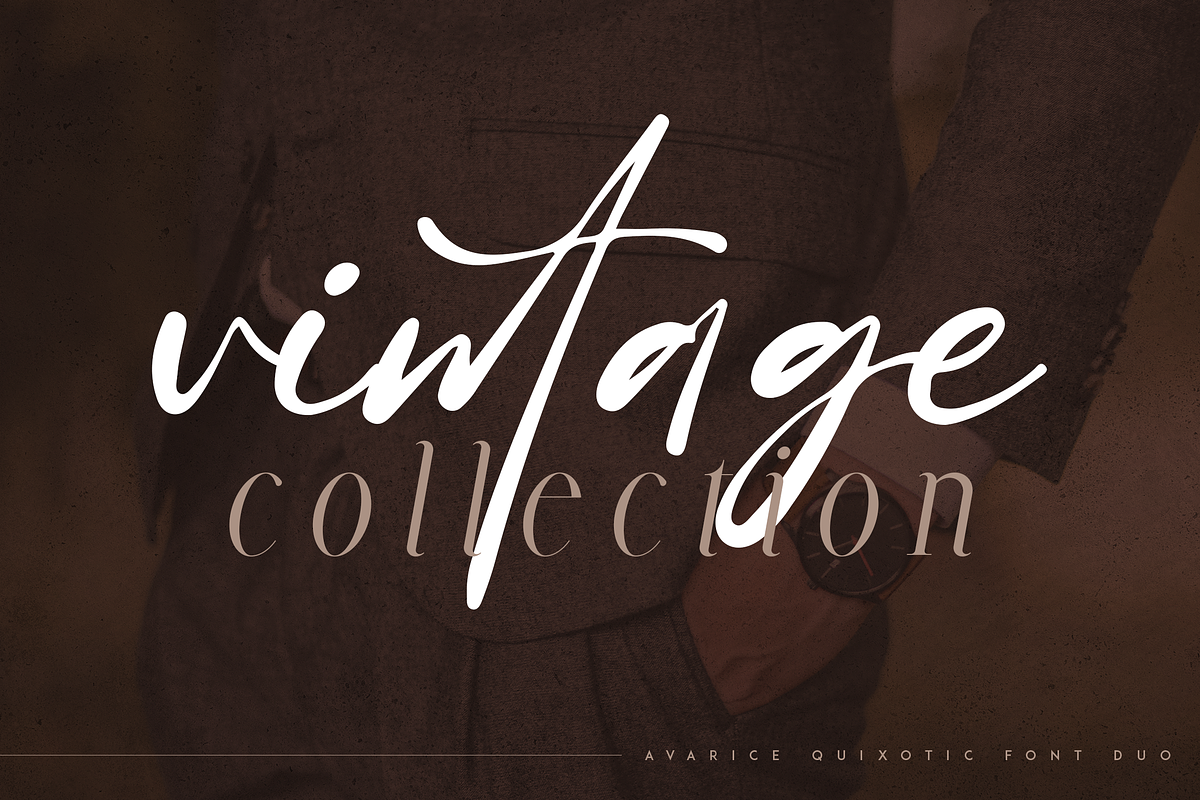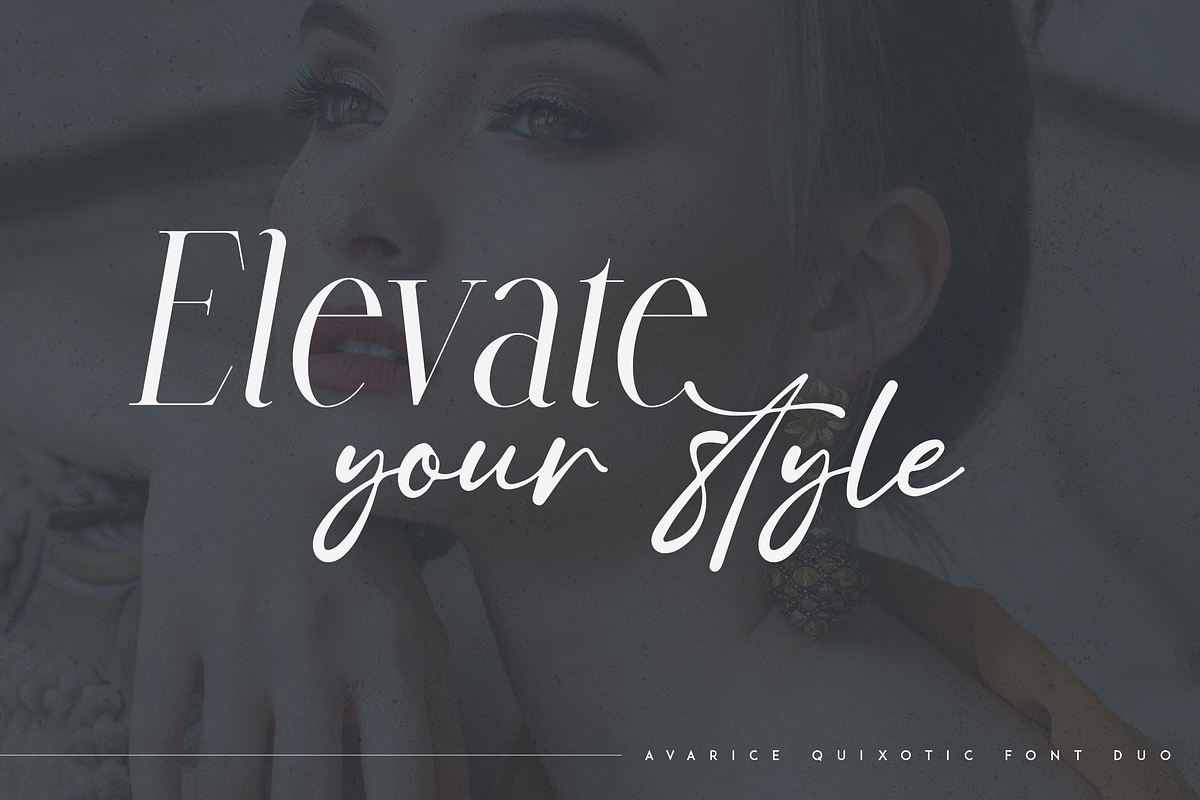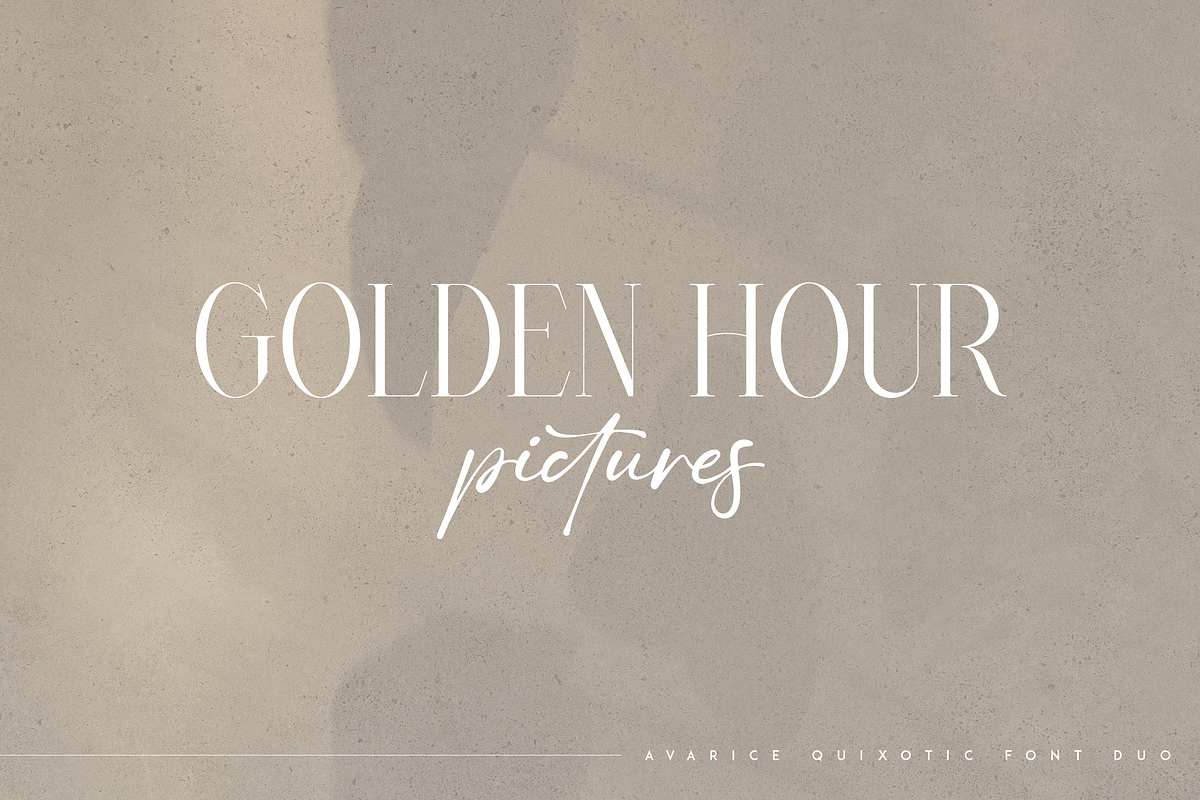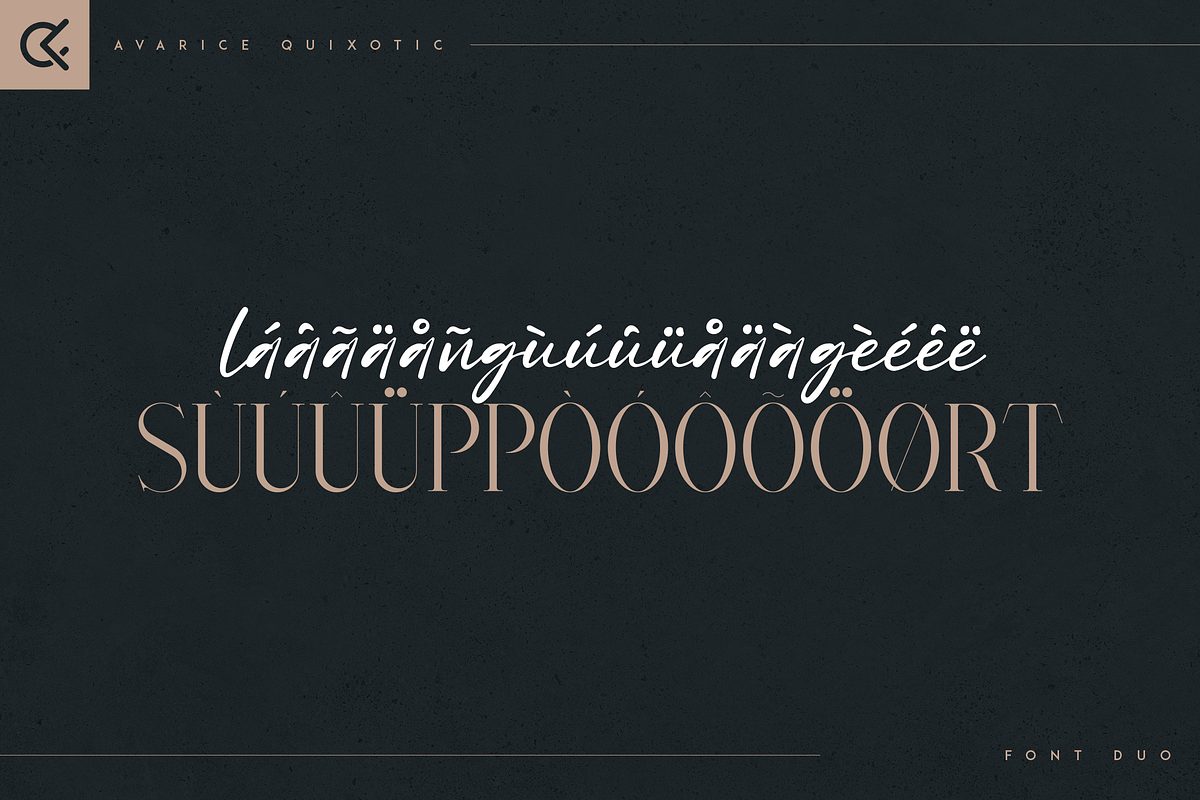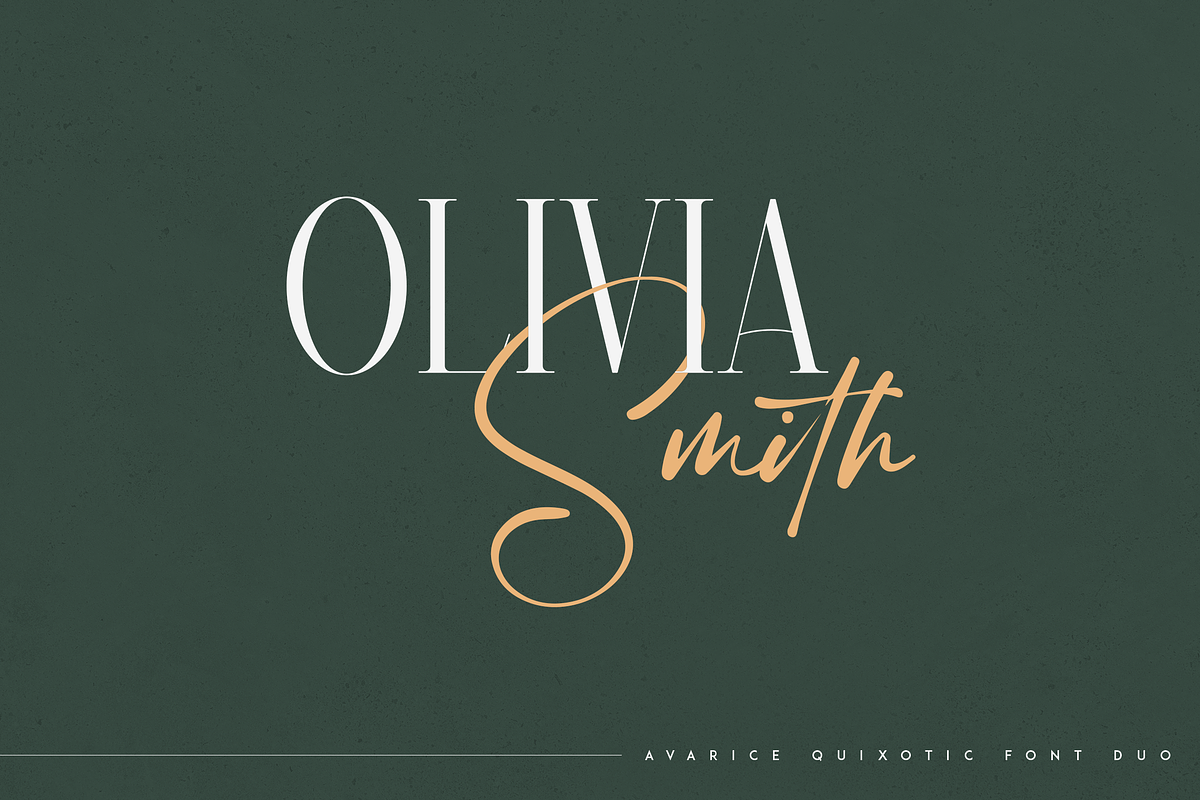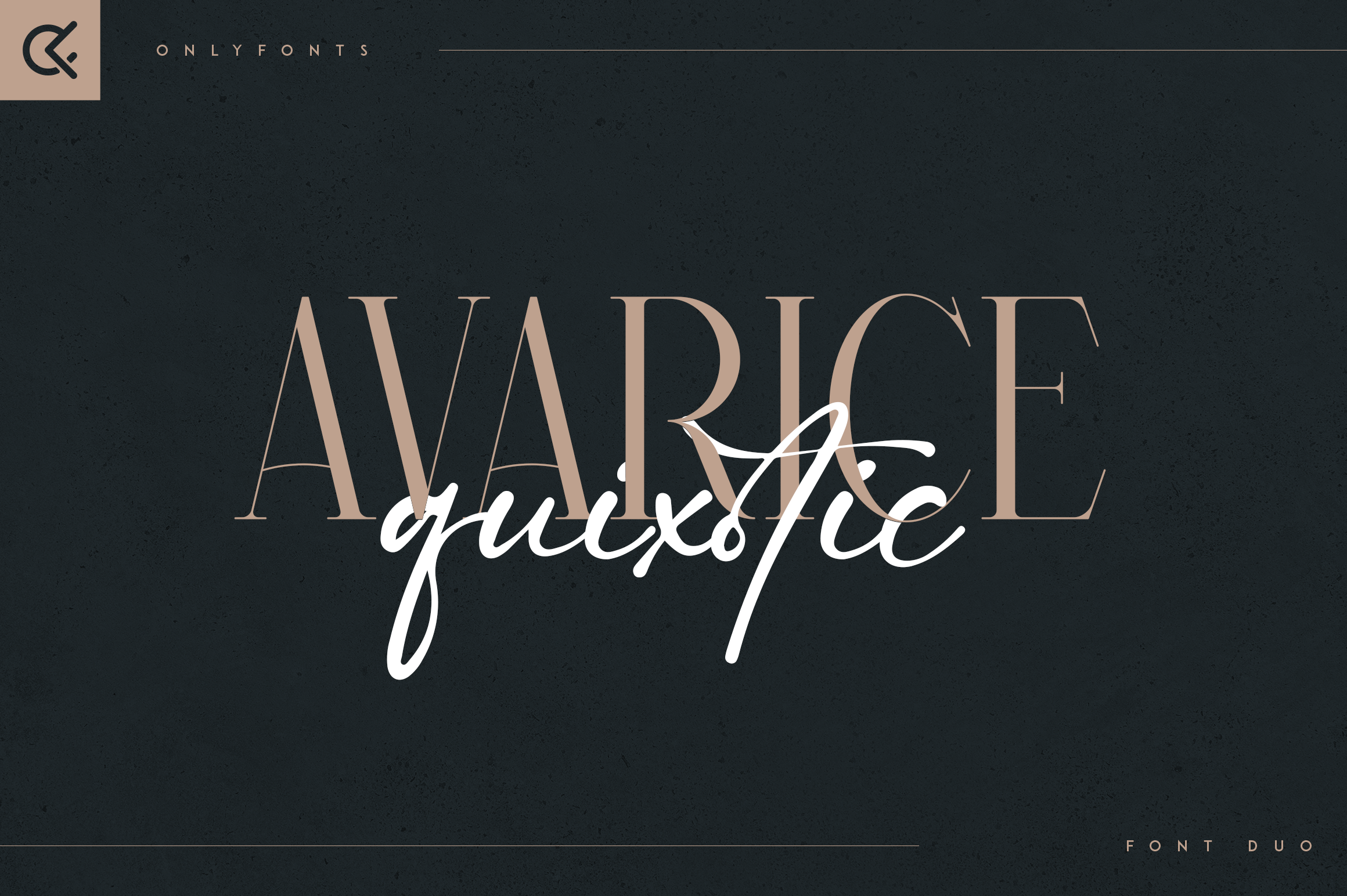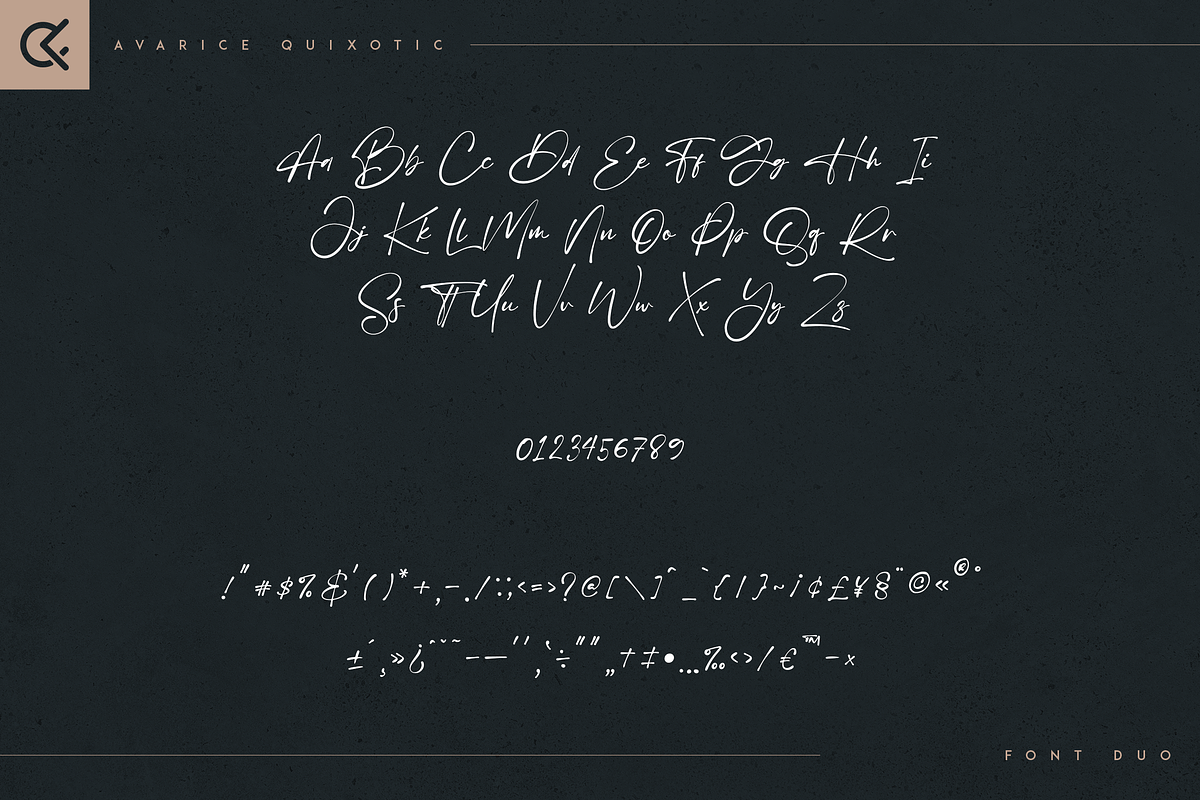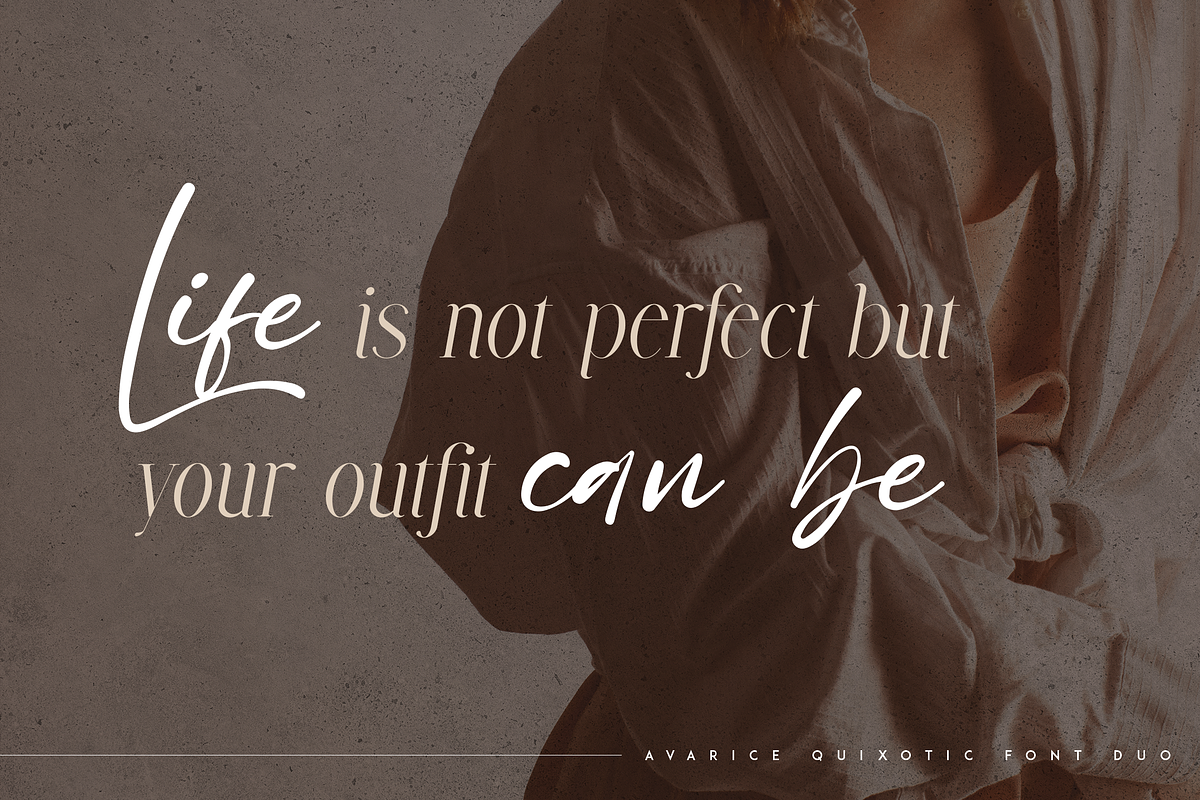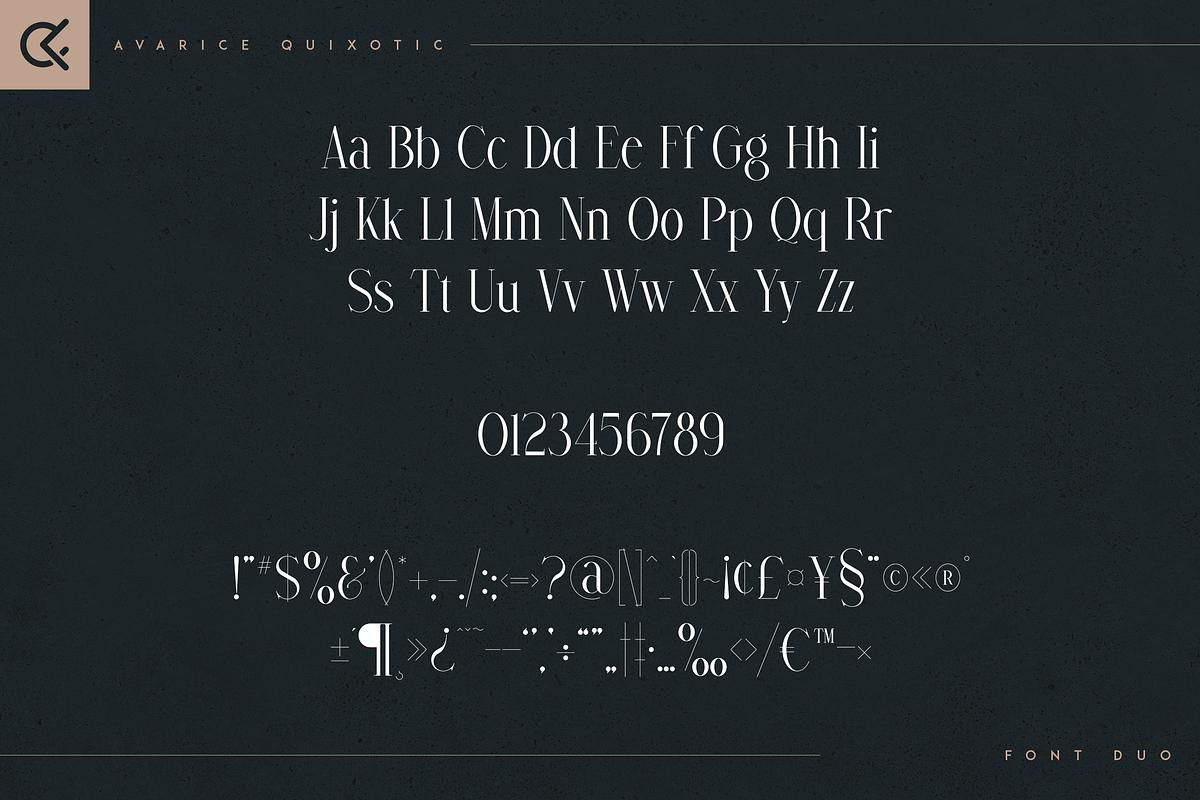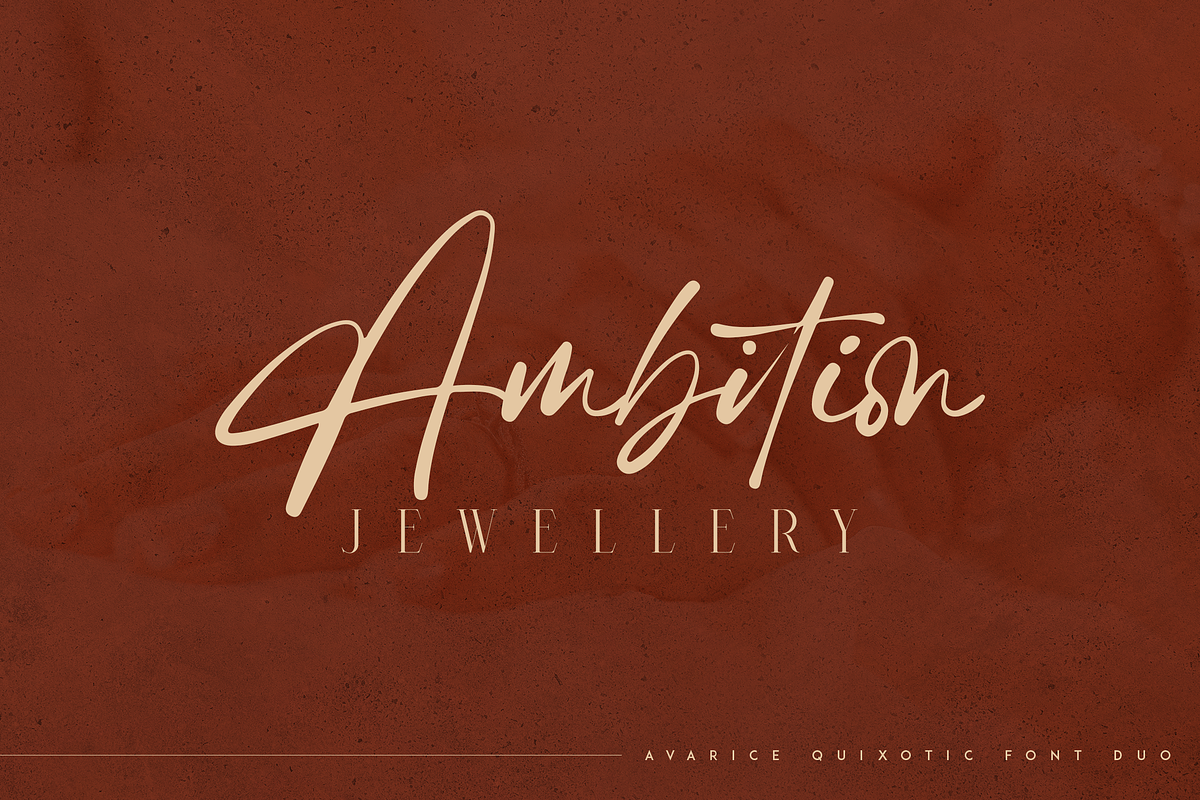
Avarice & Quixotic - modern font duo
Introducing Avarice & Quixotic - modern font duo
Avarice & Quixotic is elegant and organic typeface with multilingual support. It's a very versatile font that works great in large and small sizes.
This font duo is perfect for branding projects, home-ware designs, product packaging, magazine headers - or simply as a stylish text overlay to any background image.
- Uppercase, lowercase, numeral, punctuation & Symbol
- Styles 1 & 2
- Italic
- Script